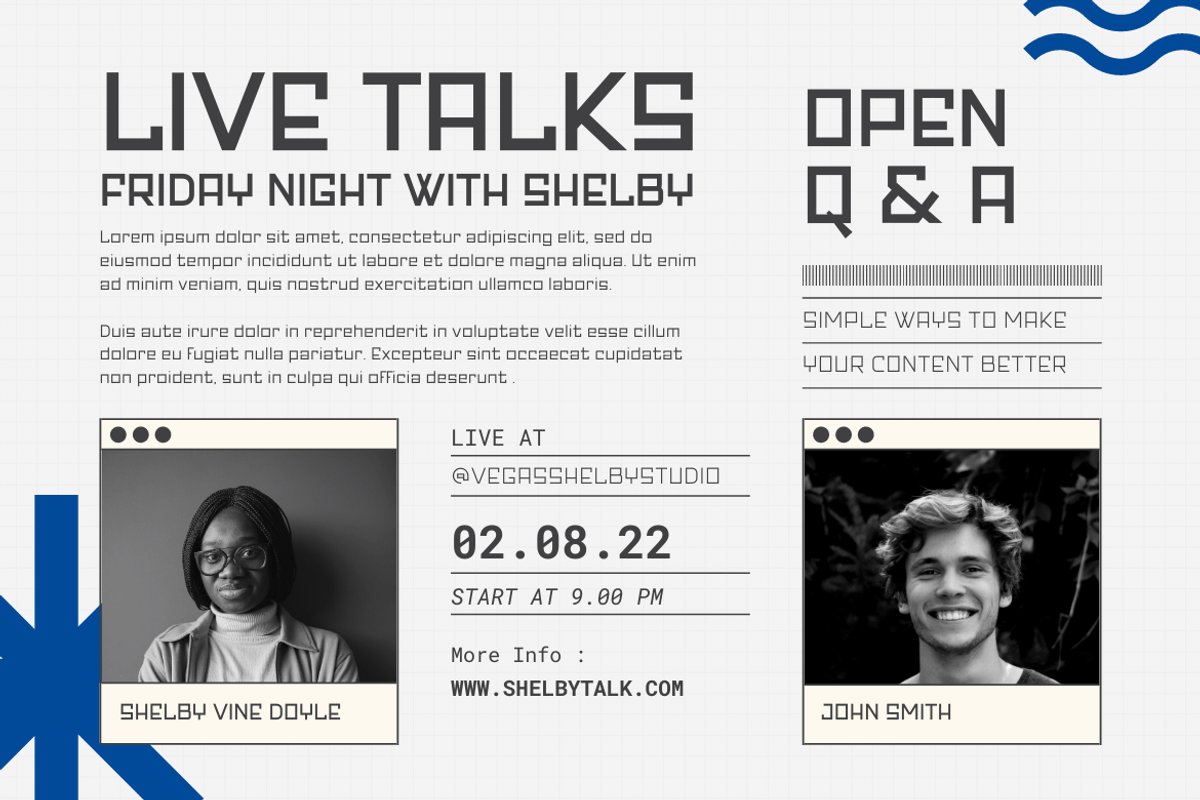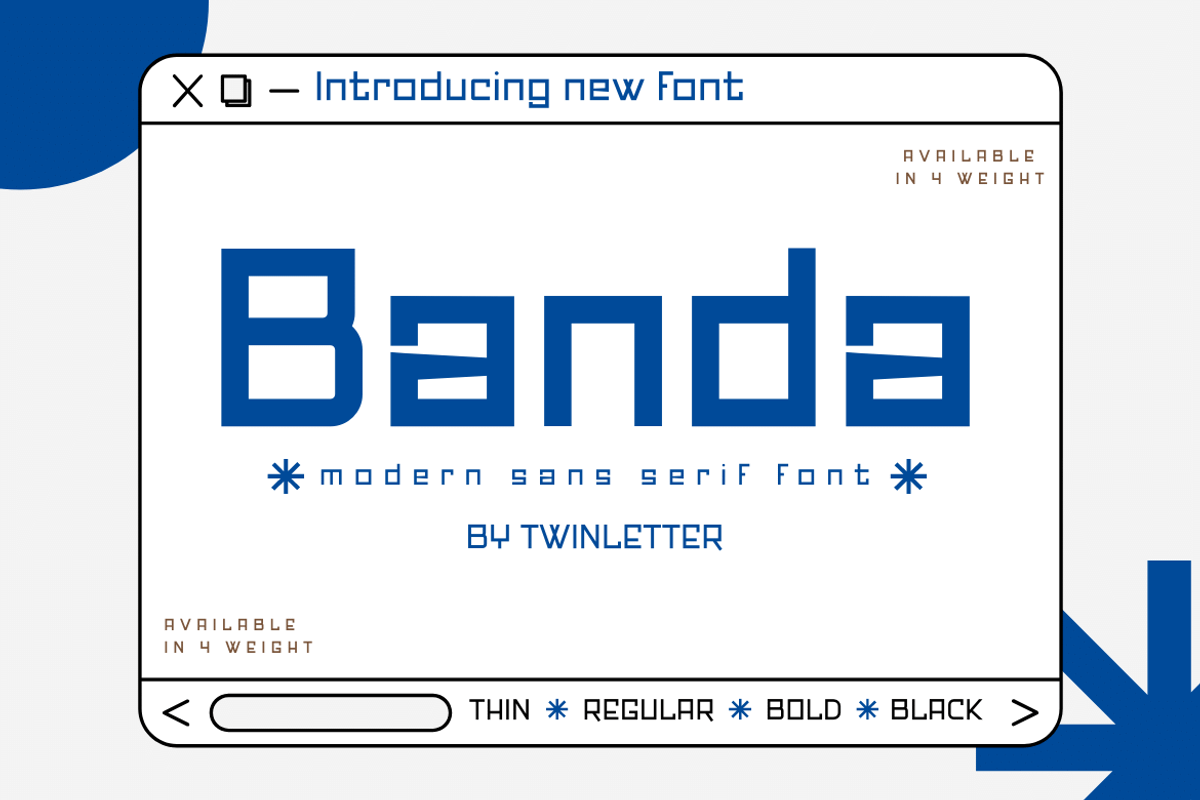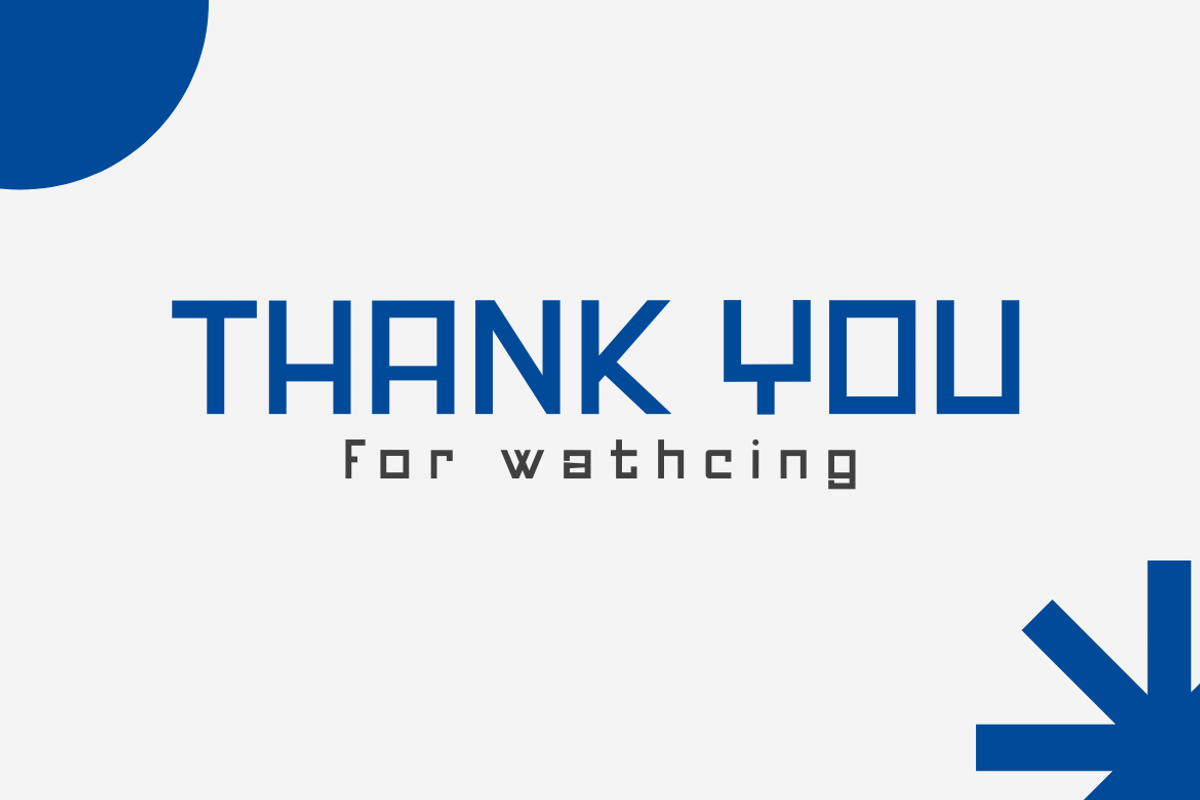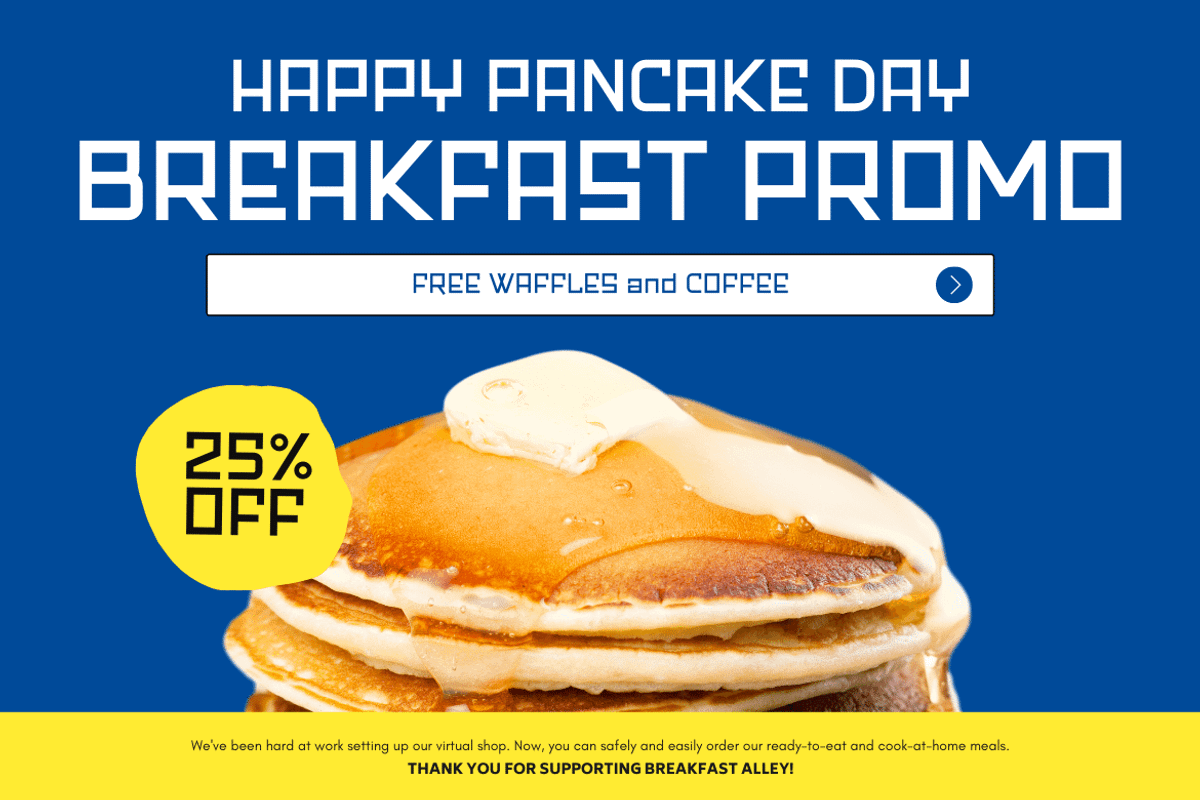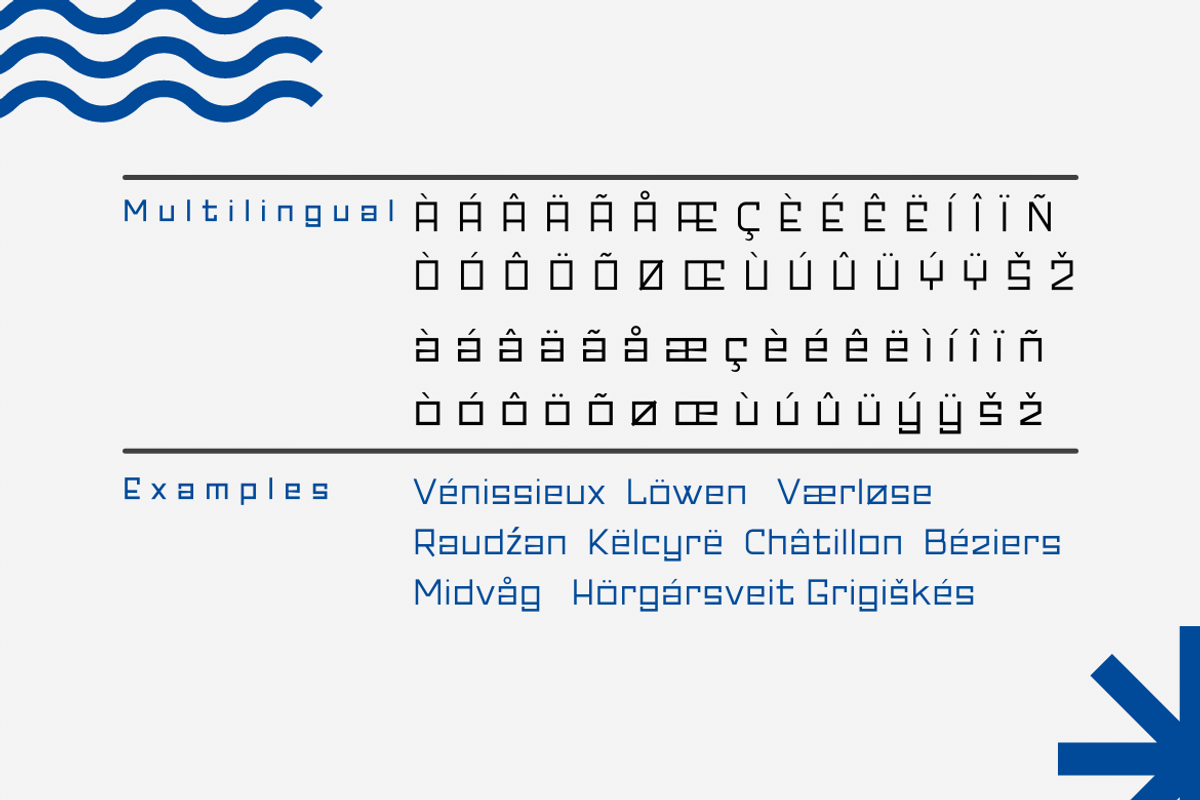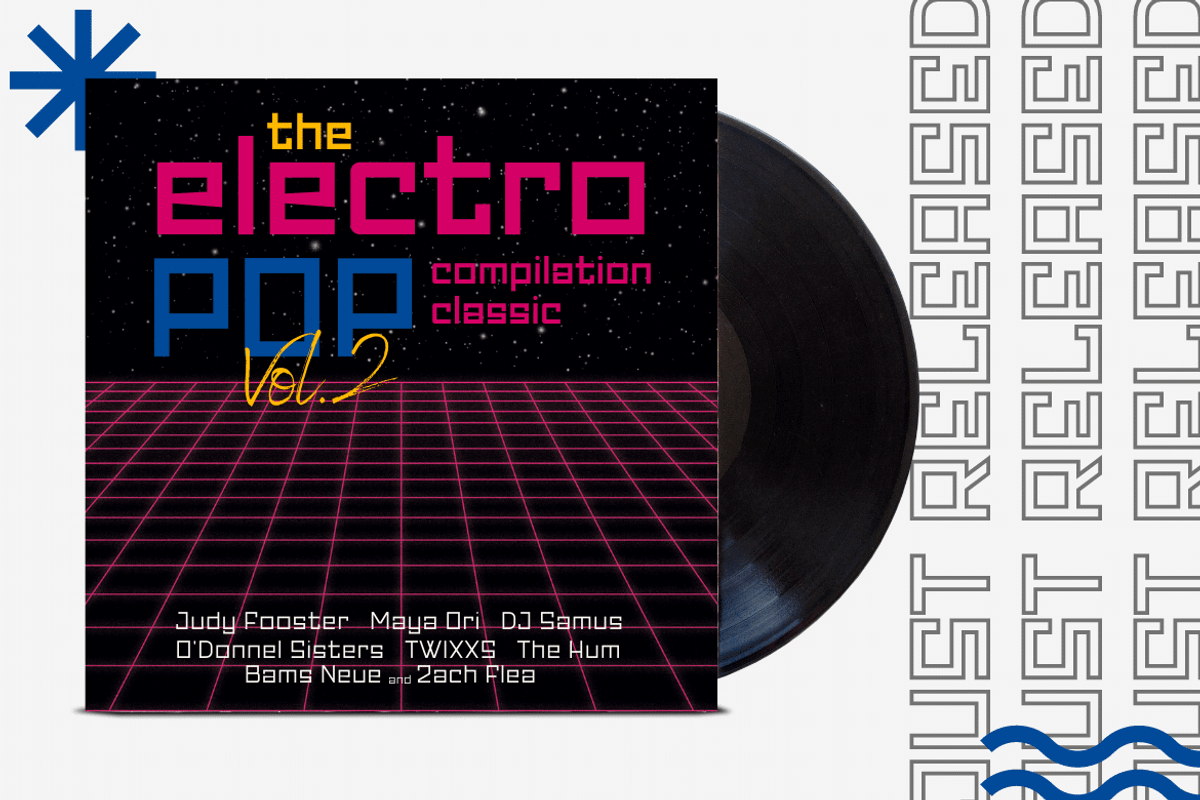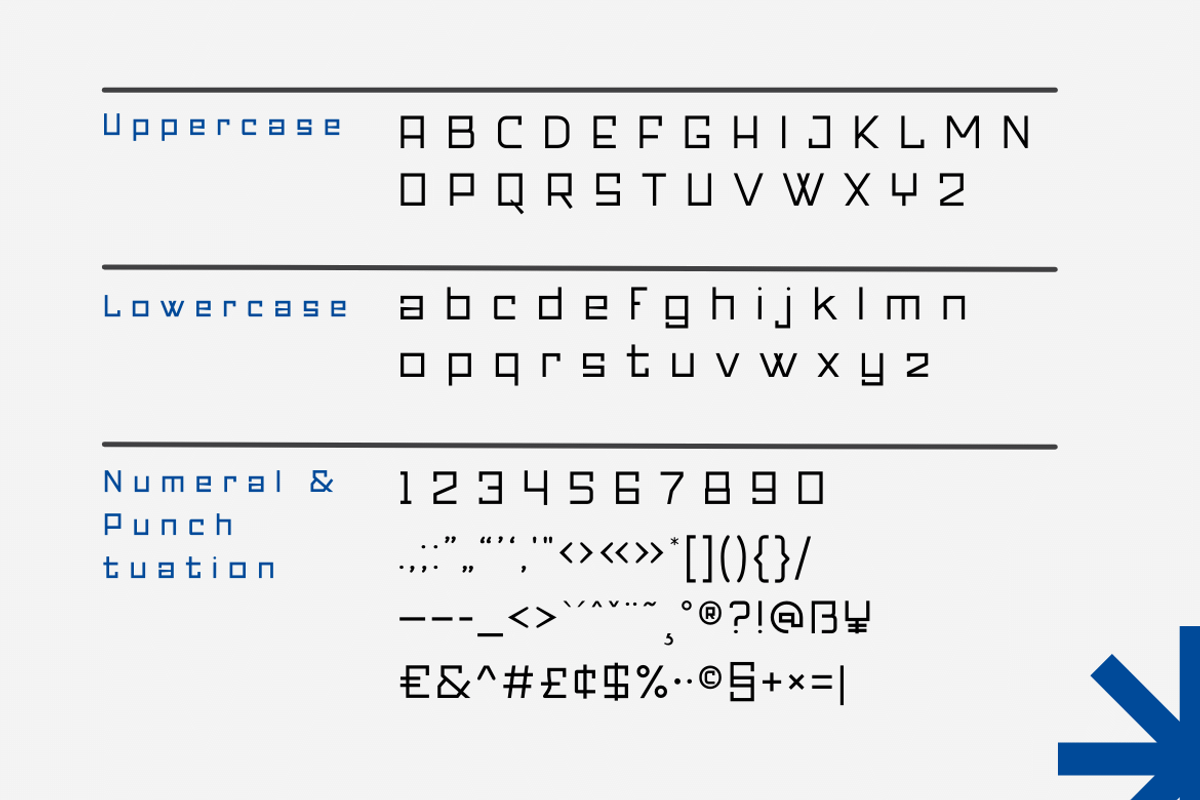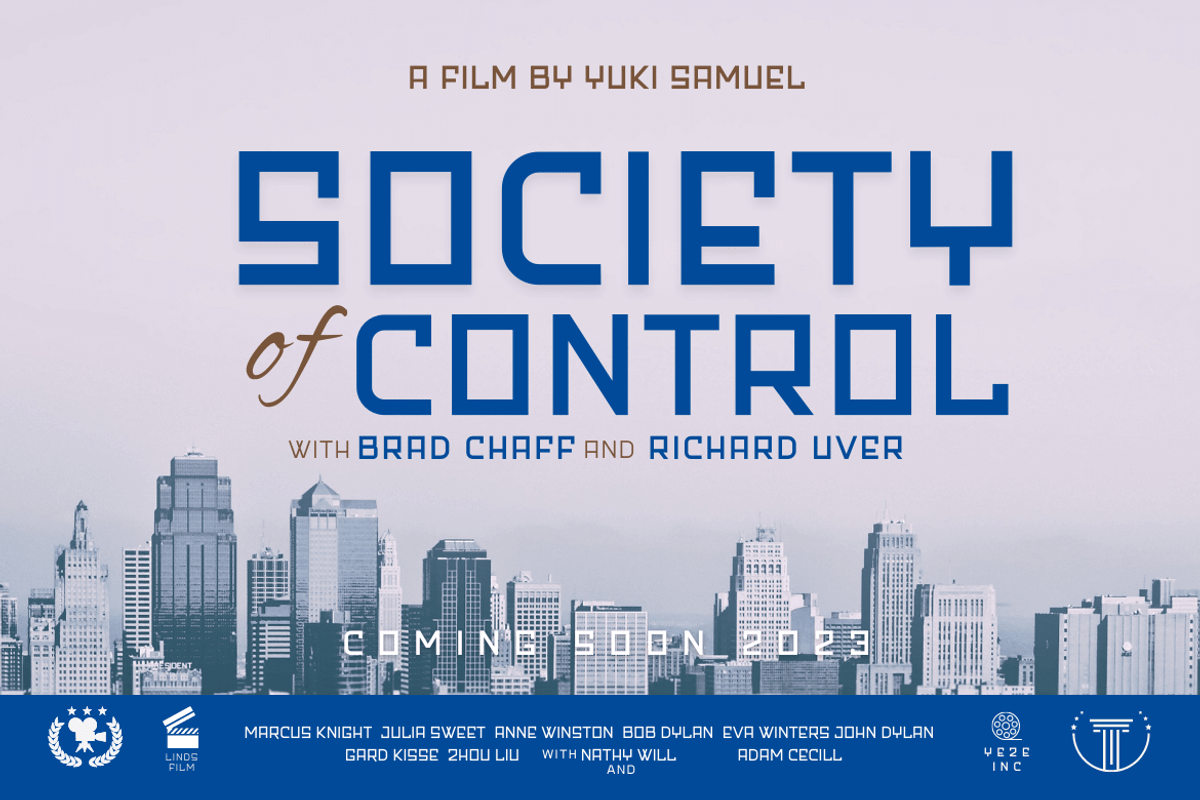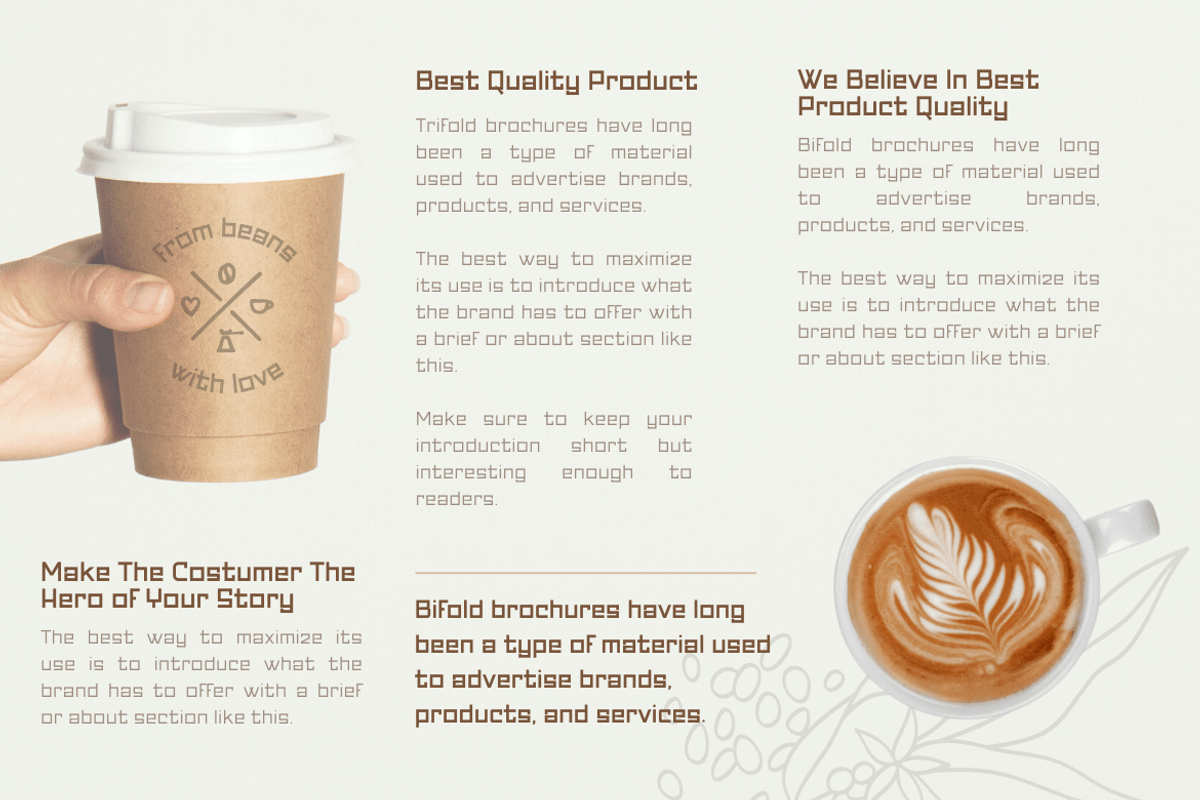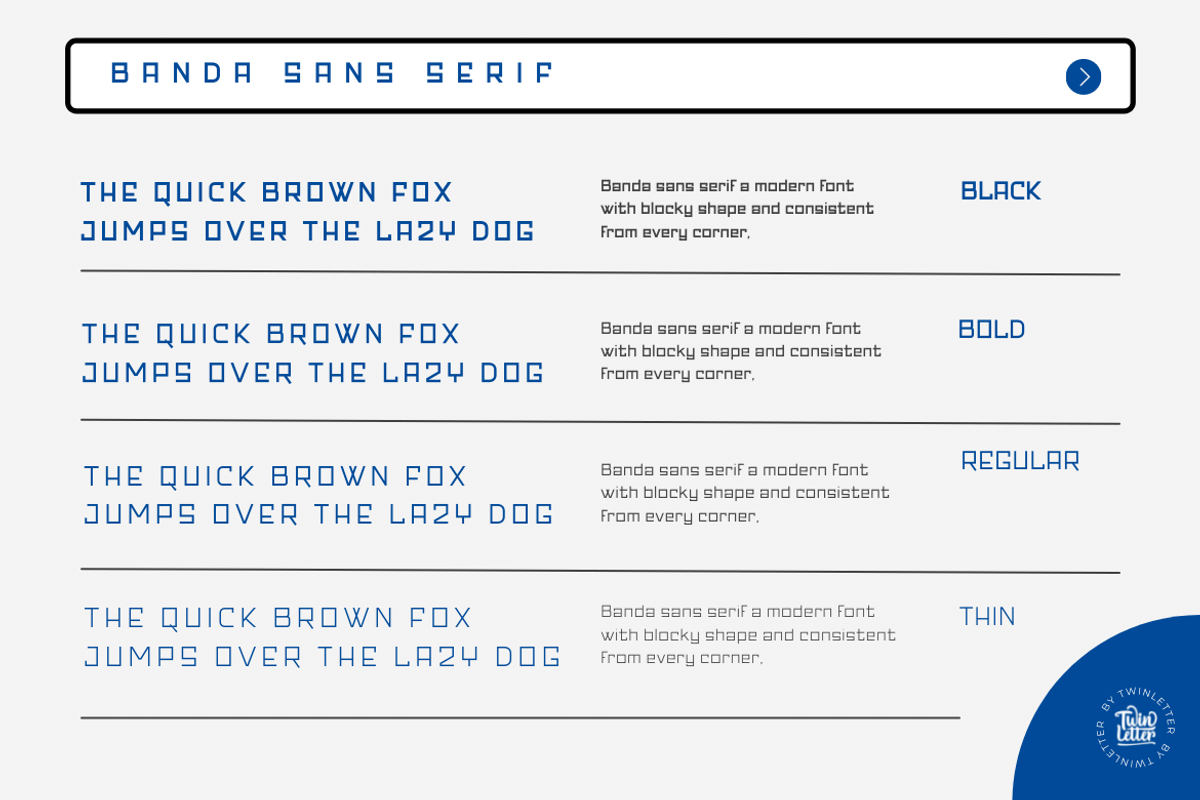
Banda
Banda is our newest san serif, and it has amazing fonts for your projects. This typeface is ideal for branding, advertising, posters, banners, packaging, headlines, magazines, websites, logo designs, banners, social media designs, and many other uses. Light, Regular, Medium, and Thick are the four available weights. It features a clean and beautiful aesthetic that can help your project appear more serene, unique and grab the attention of the audience.
of course, your various design projects will be perfect and extraordinary if you use this font because this font is equipped with a font family, both for titles and subtitles and sentence text, start using our fonts for your extraordinary projects.